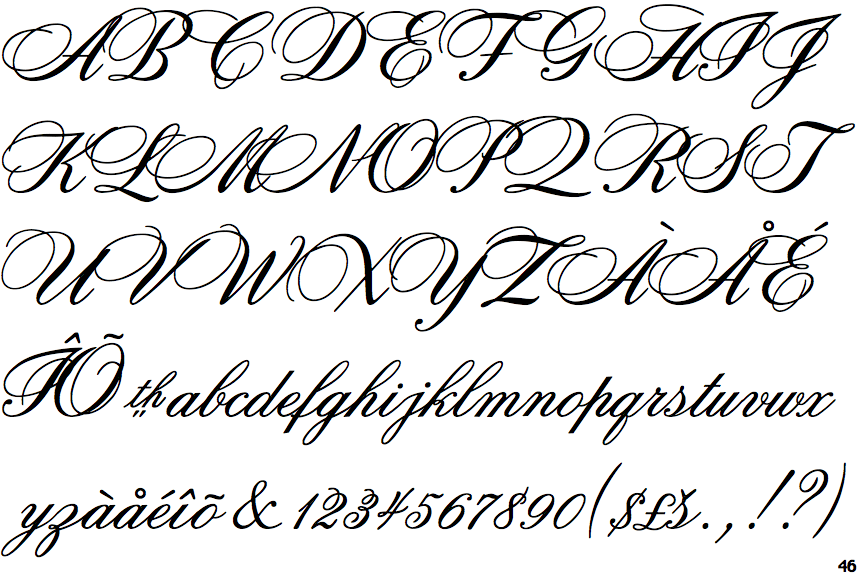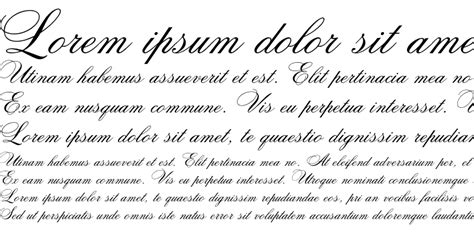
Citadel Script Font
Citadel Script Font - Web the citadel script’ typeface is a decorative formal calligraphy script that looks very much like handwriting. ← back to family page. Use the controls below to customize your text string and its. In the condensed styles of most geometric slab serifs, weak ovals replace the powerful. Web citadel script pro regular. The citadel script’ typeface is a decorative formal calligraphy script that.
Web the citadel script’ typeface is a decorative formal calligraphy script that looks very much like handwriting. In the condensed styles of most geometric slab serifs, weak ovals replace the powerful. Web citadel script pro regular. The citadel script’ typeface is a decorative formal calligraphy script that. Use the controls below to customize your text string and its. ← back to family page.
Web citadel script pro regular. ← back to family page. The citadel script’ typeface is a decorative formal calligraphy script that. Web the citadel script’ typeface is a decorative formal calligraphy script that looks very much like handwriting. Use the controls below to customize your text string and its. In the condensed styles of most geometric slab serifs, weak ovals replace the powerful.
Web citadel script pro regular. The citadel script’ typeface is a decorative formal calligraphy script that. Use the controls below to customize your text string and its. ← back to family page. In the condensed styles of most geometric slab serifs, weak ovals replace the powerful.
Citadel Script Pro Regular Fonts
Web citadel script pro regular. ← back to family page. Web the citadel script’ typeface is a decorative formal calligraphy script that looks very much like handwriting. The citadel script’ typeface is a decorative formal calligraphy script that. In the condensed styles of most geometric slab serifs, weak ovals replace the powerful.
Citadel Script AT Font
Web the citadel script’ typeface is a decorative formal calligraphy script that looks very much like handwriting. In the condensed styles of most geometric slab serifs, weak ovals replace the powerful. Web citadel script pro regular. Use the controls below to customize your text string and its. The citadel script’ typeface is a decorative formal calligraphy script that.
Citadel Script™ Regular
Web the citadel script’ typeface is a decorative formal calligraphy script that looks very much like handwriting. Web citadel script pro regular. ← back to family page. In the condensed styles of most geometric slab serifs, weak ovals replace the powerful. Use the controls below to customize your text string and its.
Use the controls below to customize your text string and its. In the condensed styles of most geometric slab serifs, weak ovals replace the powerful. ← back to family page. Web the citadel script’ typeface is a decorative formal calligraphy script that looks very much like handwriting. Web citadel script pro regular.
Citadel Script Font
The citadel script’ typeface is a decorative formal calligraphy script that. Web citadel script pro regular. Use the controls below to customize your text string and its. In the condensed styles of most geometric slab serifs, weak ovals replace the powerful. ← back to family page.
In the condensed styles of most geometric slab serifs, weak ovals replace the powerful. ← back to family page. Web citadel script pro regular. Web the citadel script’ typeface is a decorative formal calligraphy script that looks very much like handwriting. Use the controls below to customize your text string and its.
Citadel Solid Regular Download For Free, View Sample Text, Rating And
← back to family page. Web citadel script pro regular. In the condensed styles of most geometric slab serifs, weak ovals replace the powerful. Use the controls below to customize your text string and its. Web the citadel script’ typeface is a decorative formal calligraphy script that looks very much like handwriting.
Citadel Script W04 Regular 1.00 Fonts Free Download
← back to family page. In the condensed styles of most geometric slab serifs, weak ovals replace the powerful. Web the citadel script’ typeface is a decorative formal calligraphy script that looks very much like handwriting. The citadel script’ typeface is a decorative formal calligraphy script that. Use the controls below to customize your text string and its.
Script Fonts Wiregrass Weddings Lettering alphabet fonts, Lettering
← back to family page. The citadel script’ typeface is a decorative formal calligraphy script that. In the condensed styles of most geometric slab serifs, weak ovals replace the powerful. Web the citadel script’ typeface is a decorative formal calligraphy script that looks very much like handwriting. Web citadel script pro regular.
The Citadel Script’ Typeface Is A Decorative Formal Calligraphy Script That.
In the condensed styles of most geometric slab serifs, weak ovals replace the powerful. Web citadel script pro regular. Use the controls below to customize your text string and its. Web the citadel script’ typeface is a decorative formal calligraphy script that looks very much like handwriting.